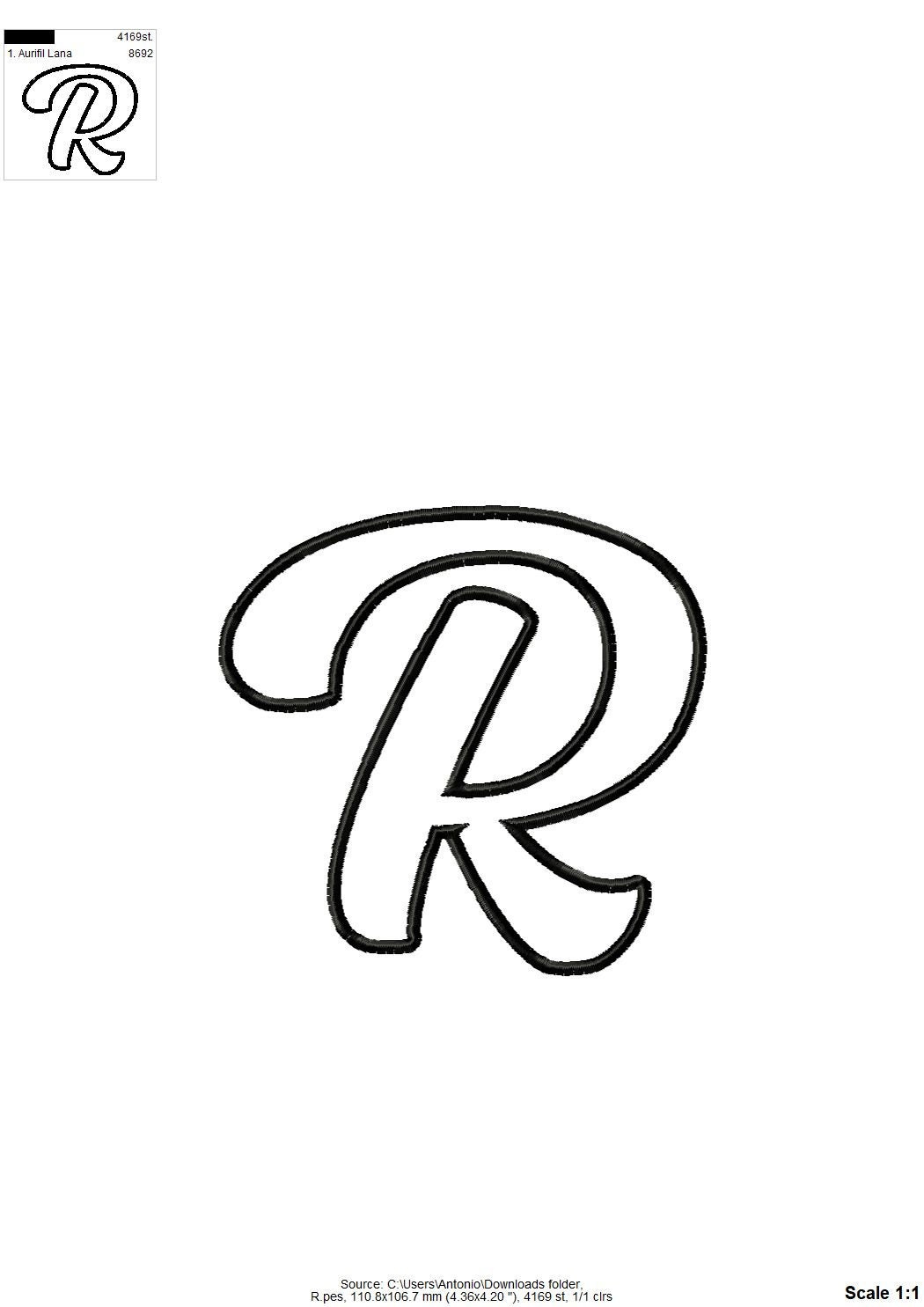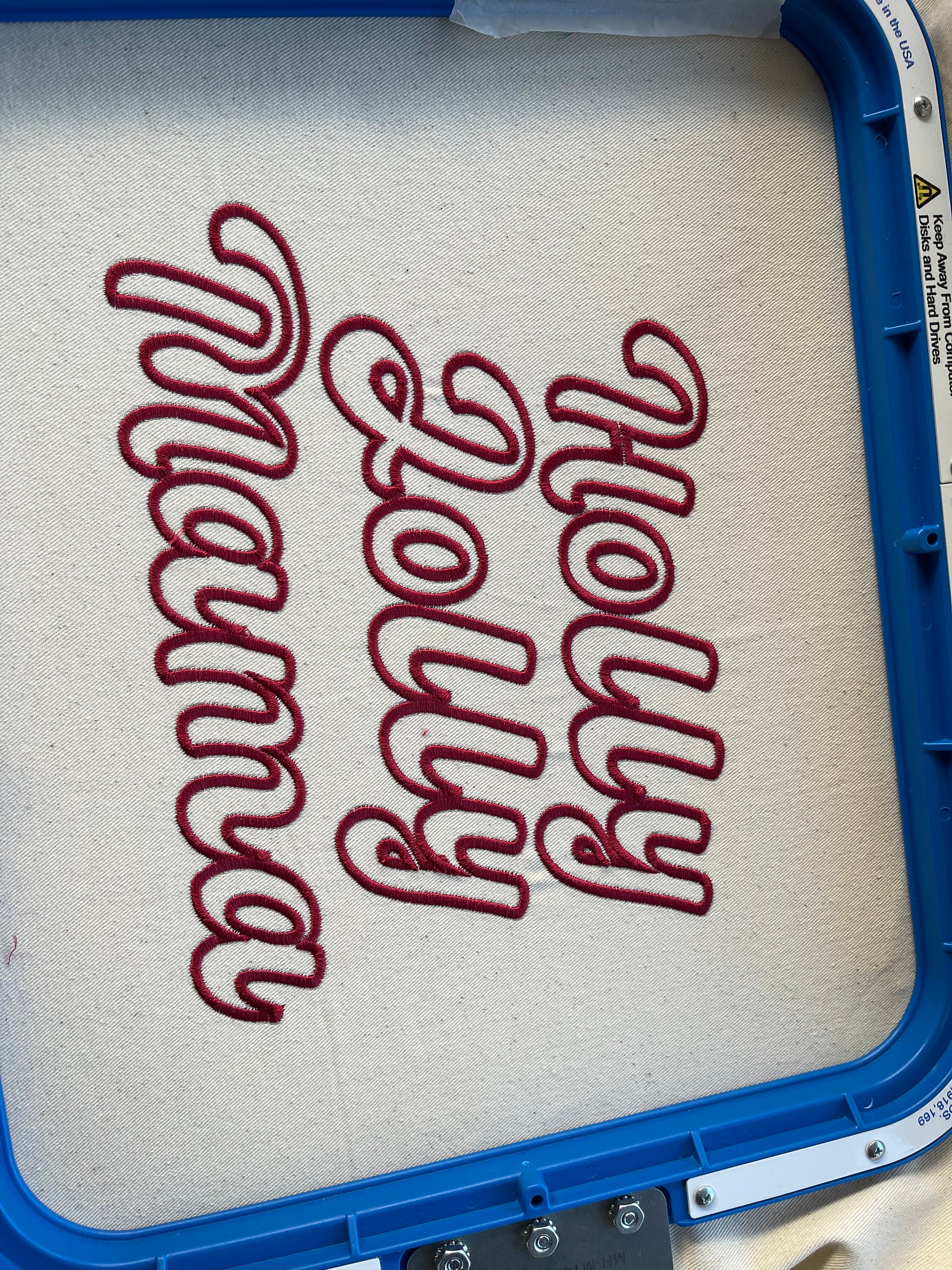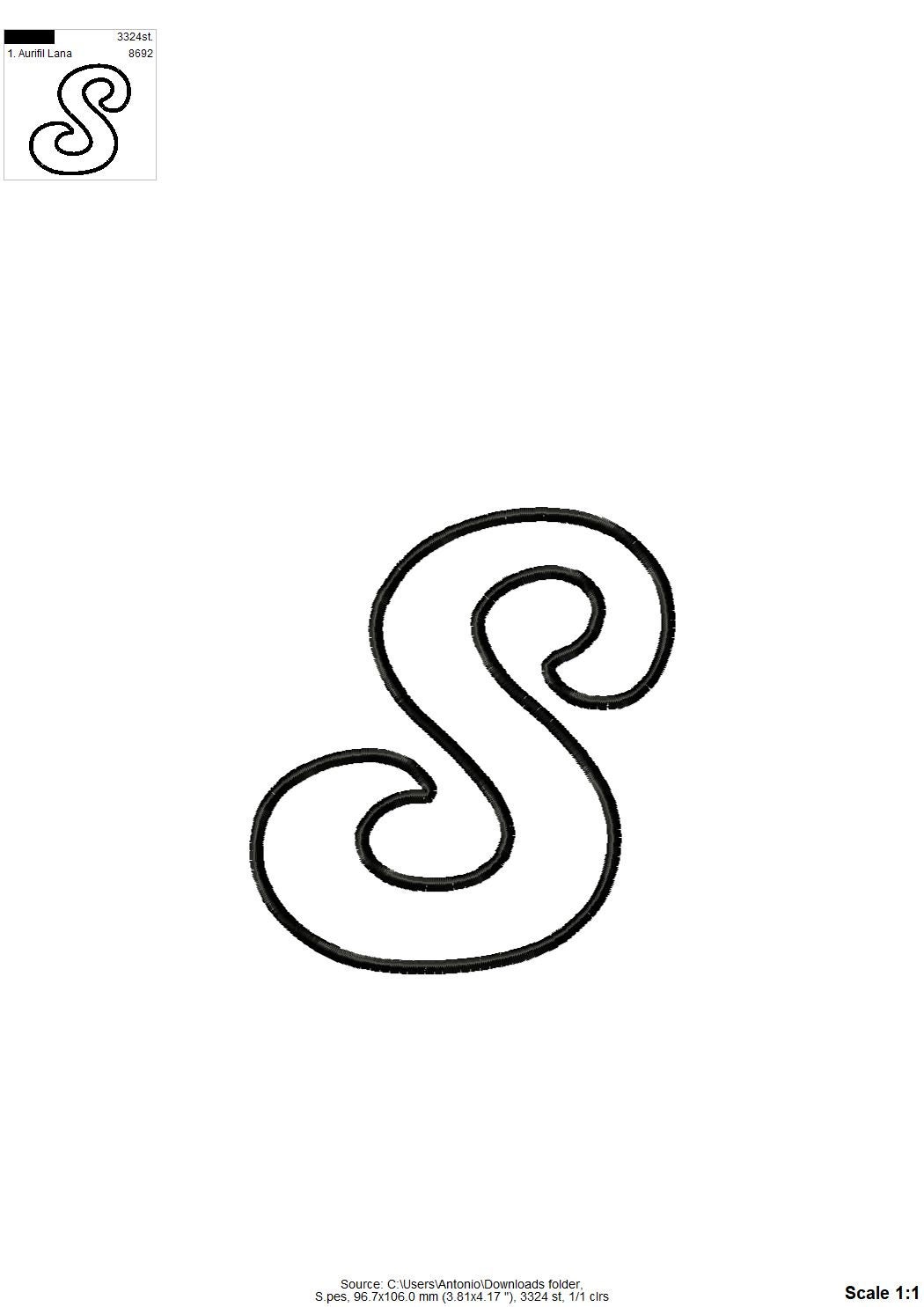
Retro outline script handwritten cursive Font alphabet letters machine embroidery designs 2.3" thru 6.5" inches, sweatshirt hoodie shirt, BX included
Uppercase and lowercase letters, and numbers.